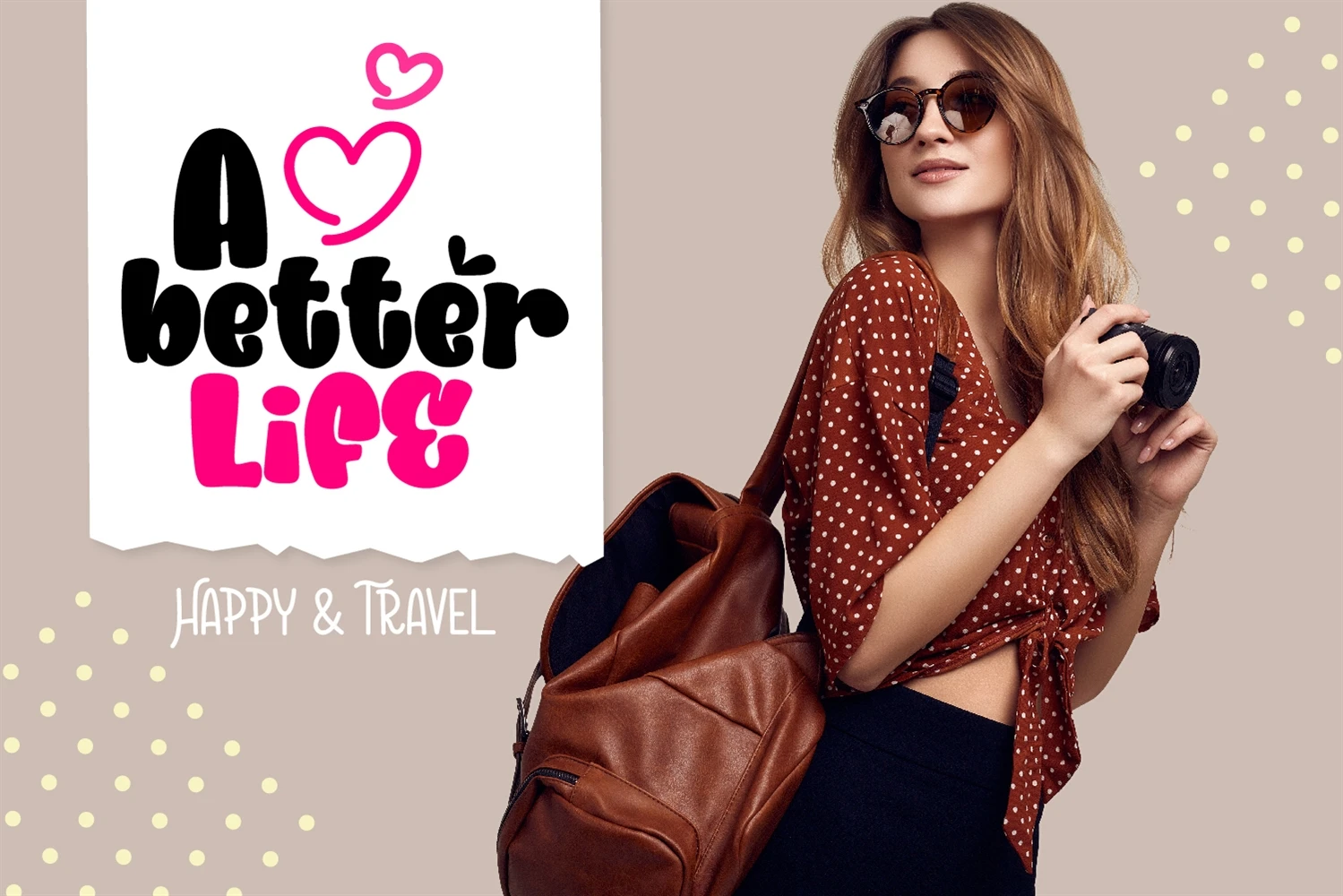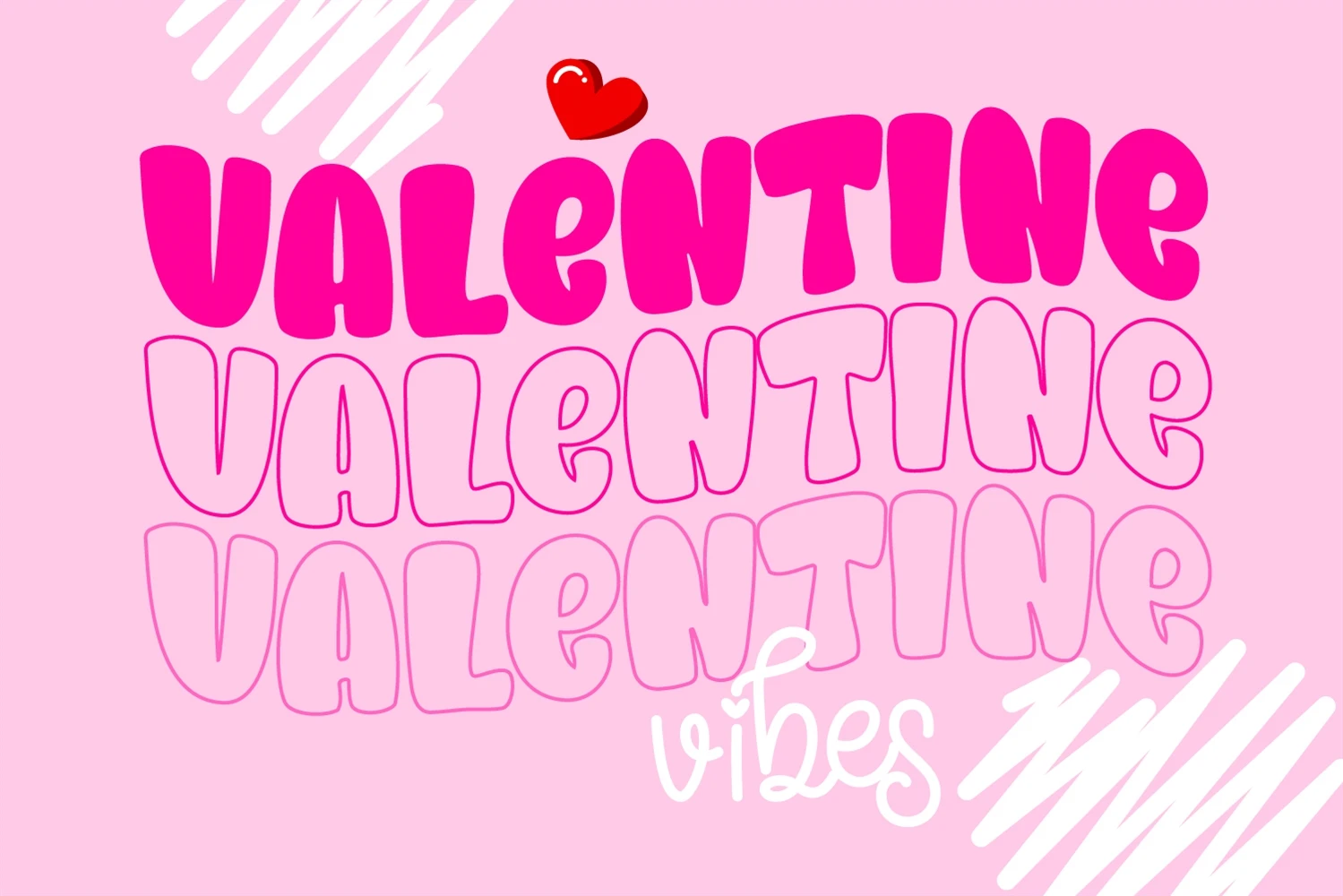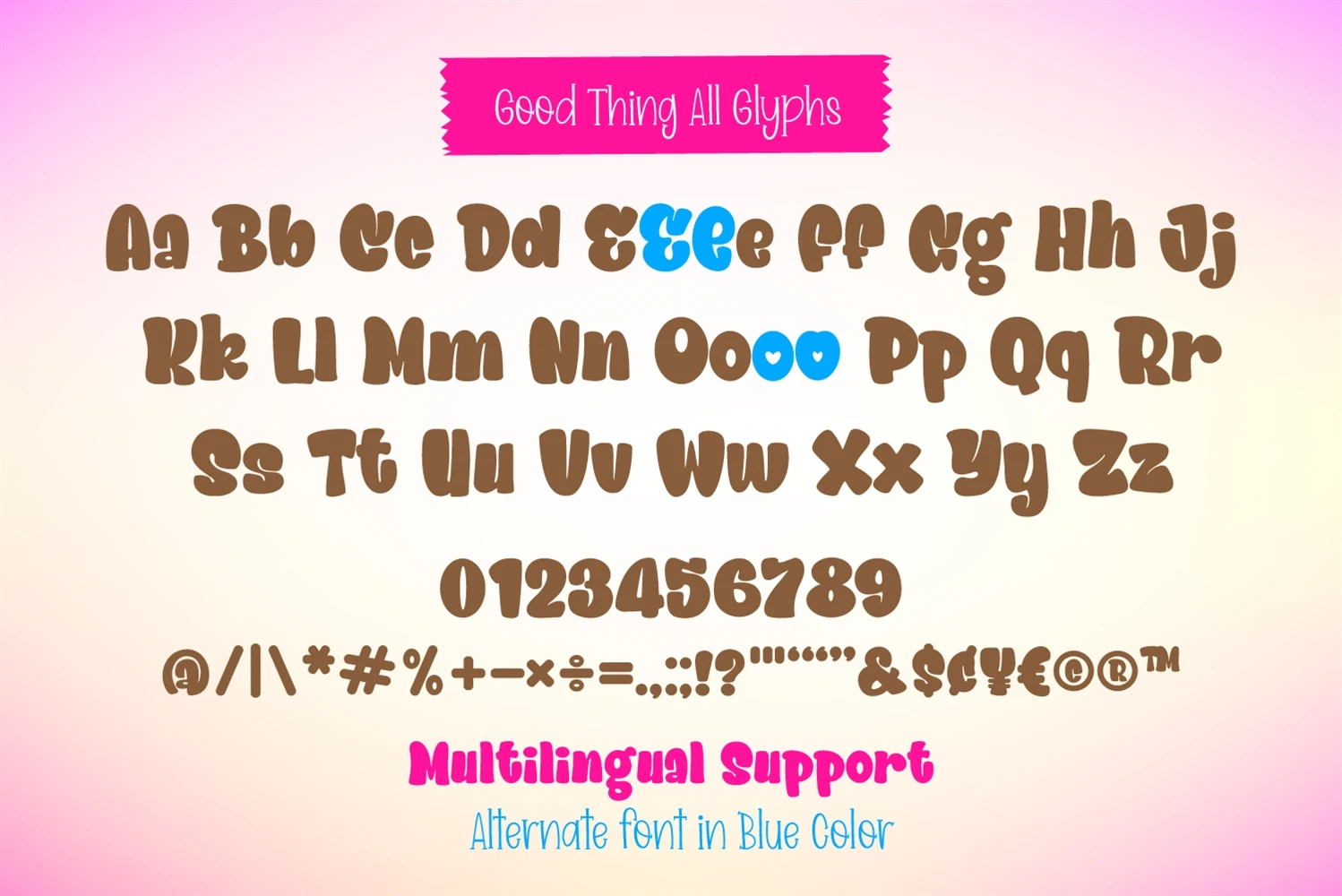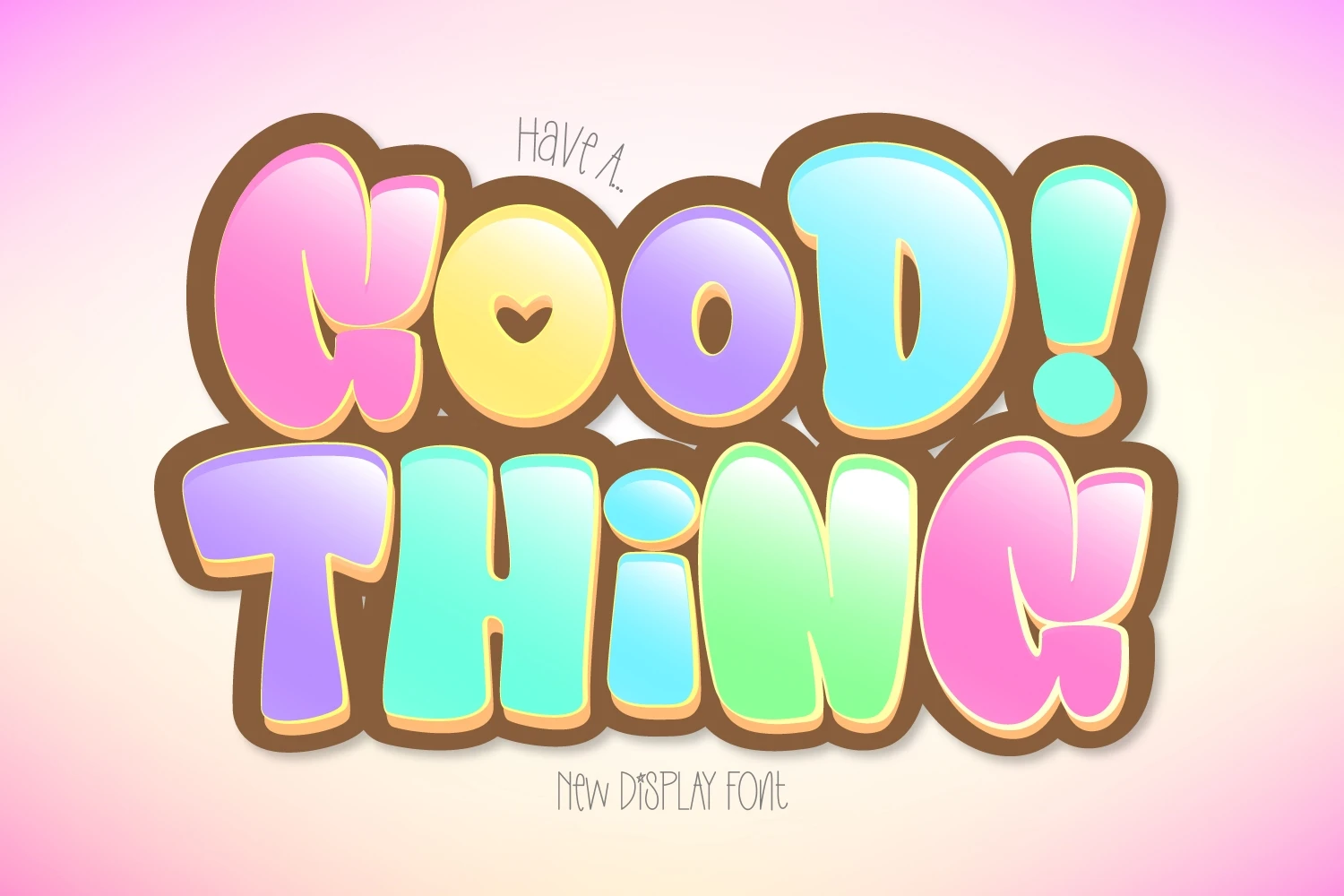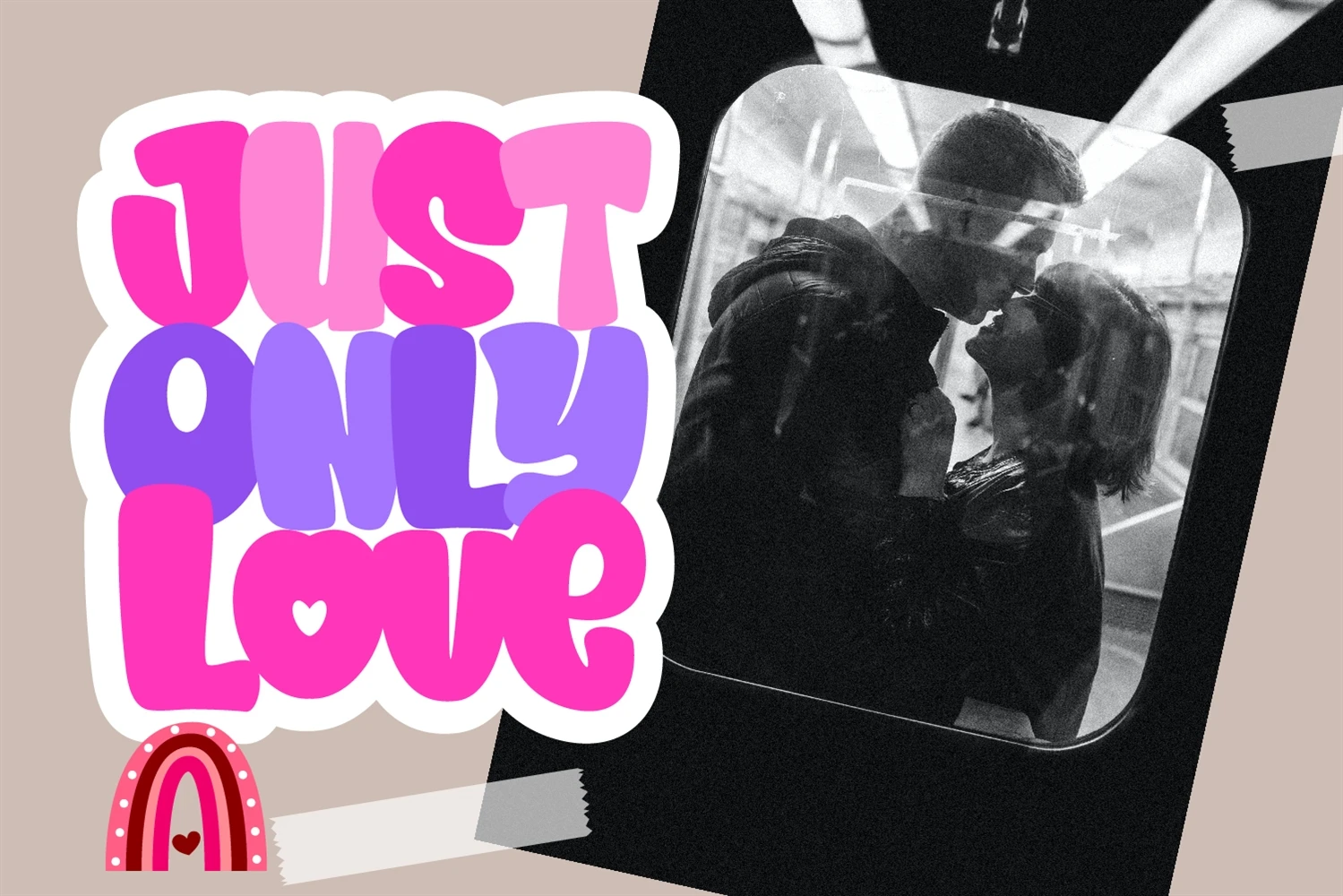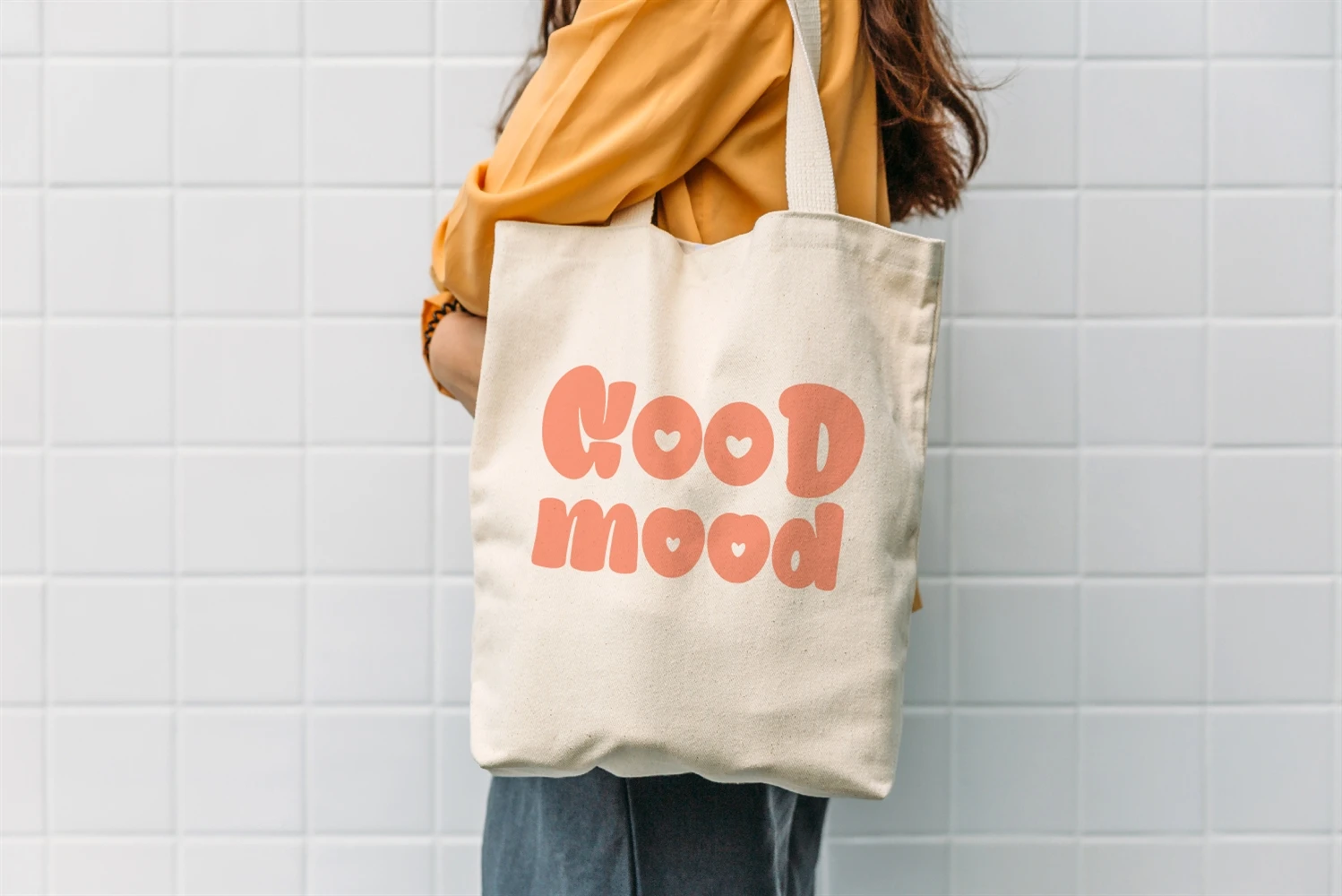
Good Thing is a bubbly and friendly display font. Whether you use it for cartoon-related designs, childrens games, or just any creation that requires a lovely touch, this font will be an amazing choice.